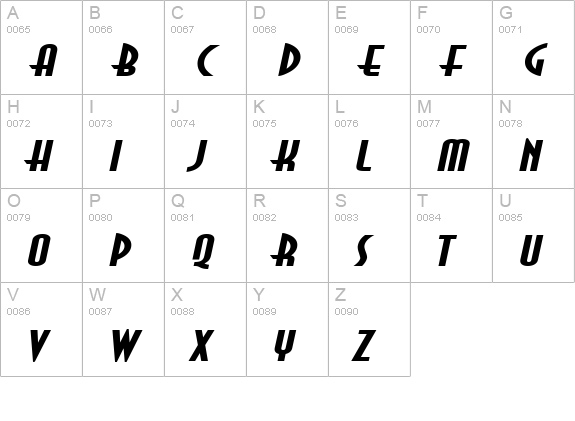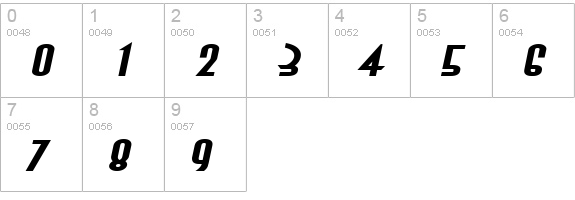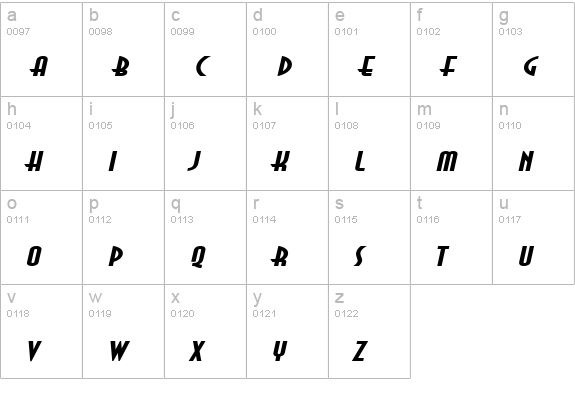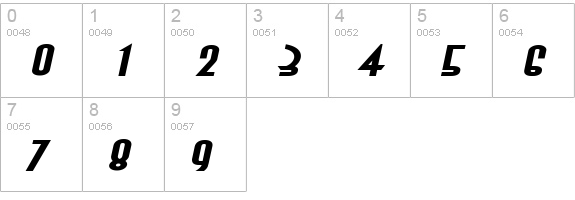
Asia Extended BoldItalic Font Details
Asia Extended BoldItalic is a distinctive, extended-width variant in the Asia typeface family \xE2\x80\x94 well suited to design and typography projects.
Asia Extended BoldItalic font is a striking and modern typeface that exudes confidence and style. With its bold and italic design, this font is perfect for making a bold statement in any project or design. The sharp angles and sleek lines of Asia Extended BoldItalic make it stand out from the crowd and add a touch of sophistication to any text. The best part about Asia Extended BoldItalic font is that it is completely free to download at FontsMarket.com. This means you can elevate your designs without breaking the bank. Whether you're working on a professional project or simply want to add a touch of flair to your personal creations, Asia Extended BoldItalic font is the perfect choice. Download it today and take your designs to the next level!